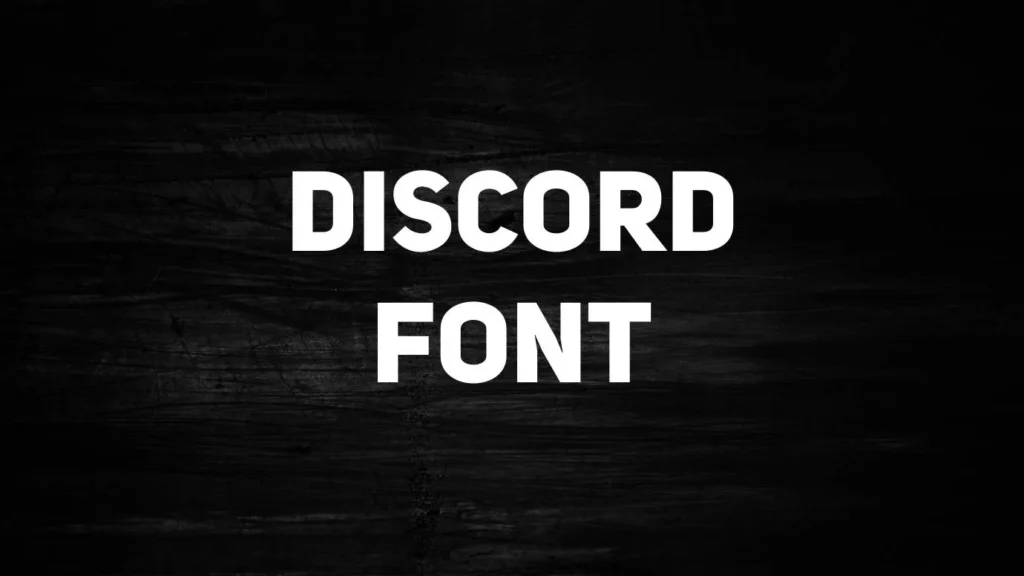
This font contains a unique set of characters that allow you to create a wide variety of projects. This typeface design makes it easy to create a custom look
Discord Font is a beautiful sans-serif font that was created by Svet Simov. It is a very straight and simple font that has been used by many designers and publications. This font glyph has been used by many publications, because of its looks and eye-catching appearance. The font has also been featured on popular TV shows.
This font contains a unique set of characters that allow you to create a wide variety of projects. This typeface design makes it easy to create a custom look for your project. For making a customer typeface, you have to combine this font with the other unique typeface such as justice league font.
History and Background of Discord Font
The Font can be used for wedding invitations, birth announcements, party invitations, business cards, website headers, blogs, and social media posts. This typeface design is also good for display design, because of its attractive look.
It is also good for pairing functions and if you need a more stylish look to your modern designs then use this typeface with the combination of made coachella font. Many cosmetics products use it for their logo and information section on their products because of its professional appearance. Alternative Fonts To the Discord Font
What font is used by Discord?
Discord Font is a versatile font that can be used for a variety of purposes. The font used in the logo of Discord is named gg sans font.